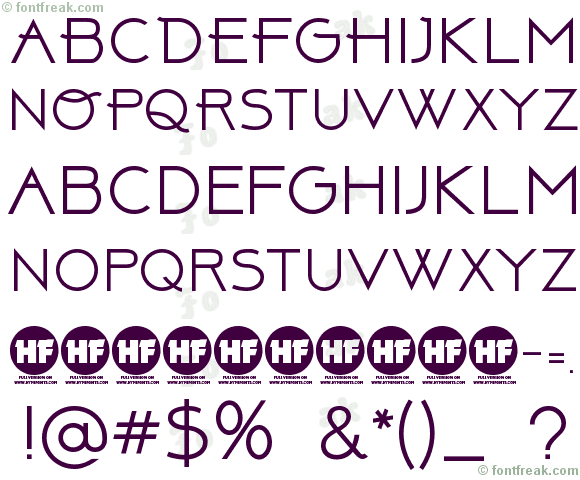
Above DEMO Regular
Above DEMO Regular by Hero Fonts is a distinctive sans-serif typeface that embodies modern elegance and clarity. With its clean lines and balanced proportions, this font is designed to enhance readability while offering a stylish touch. The stroke weight is consistent, providing a harmonious appearance, while the subtle contrast between thick and thin strokes gives it a refined character. The spacing is well thought out, ensuring legibility even in longer texts. Its minimalistic design is complemented by a slight roundness in the letters, adding a friendly yet professional vibe.
This versatile font is ideal for various applications, making it a popular choice among graphic designers and content creators. It works wonderfully for wedding invitations, where its sophistication can evoke a sense of romance. Additionally, Above DEMO Regular is perfect for movie posters, allowing titles to stand out with clarity and impact. Restaurant menus can benefit from its readability, ensuring that patrons can easily navigate their choices. It also suits branding projects, where a clean and modern aesthetic is essential for attracting customers.
In conclusion, Above DEMO Regular font free download offers a unique combination of clarity and style, making it a standout choice for anyone seeking a modern and versatile typeface. Its thoughtful design elements ensure it can adapt to various uses while maintaining a professional appearance.